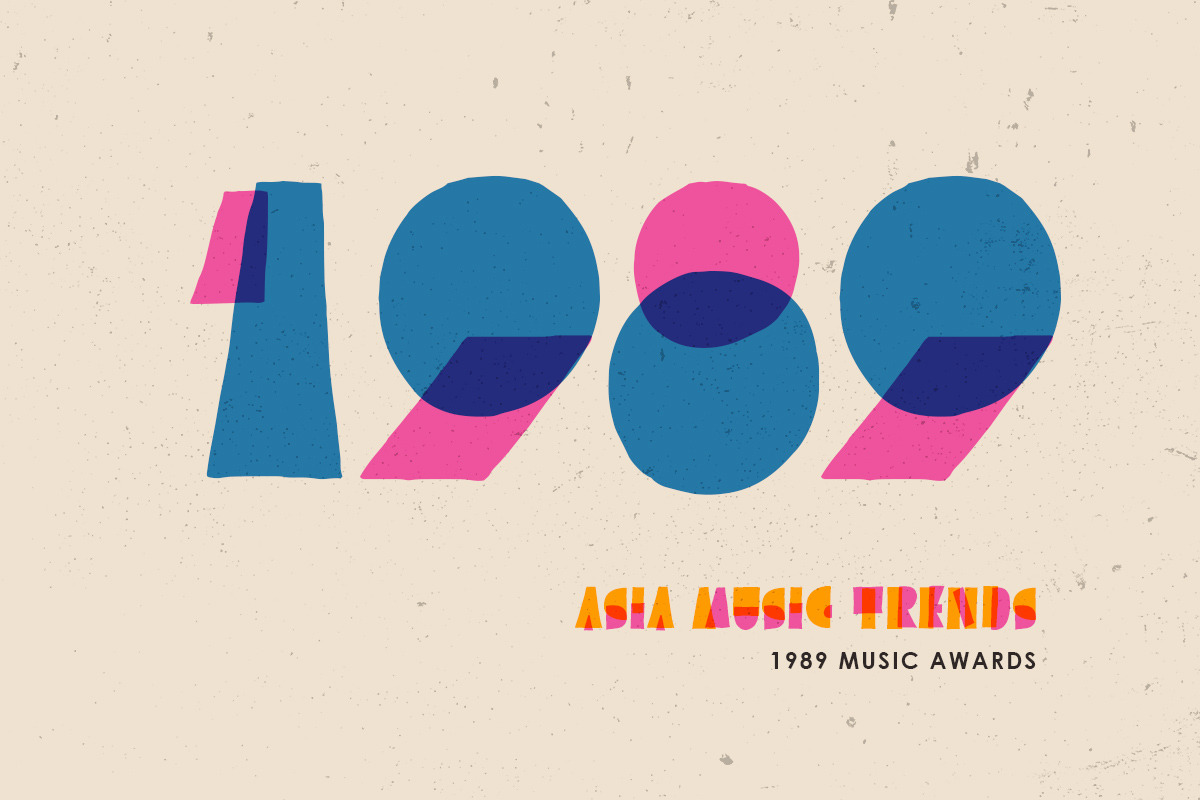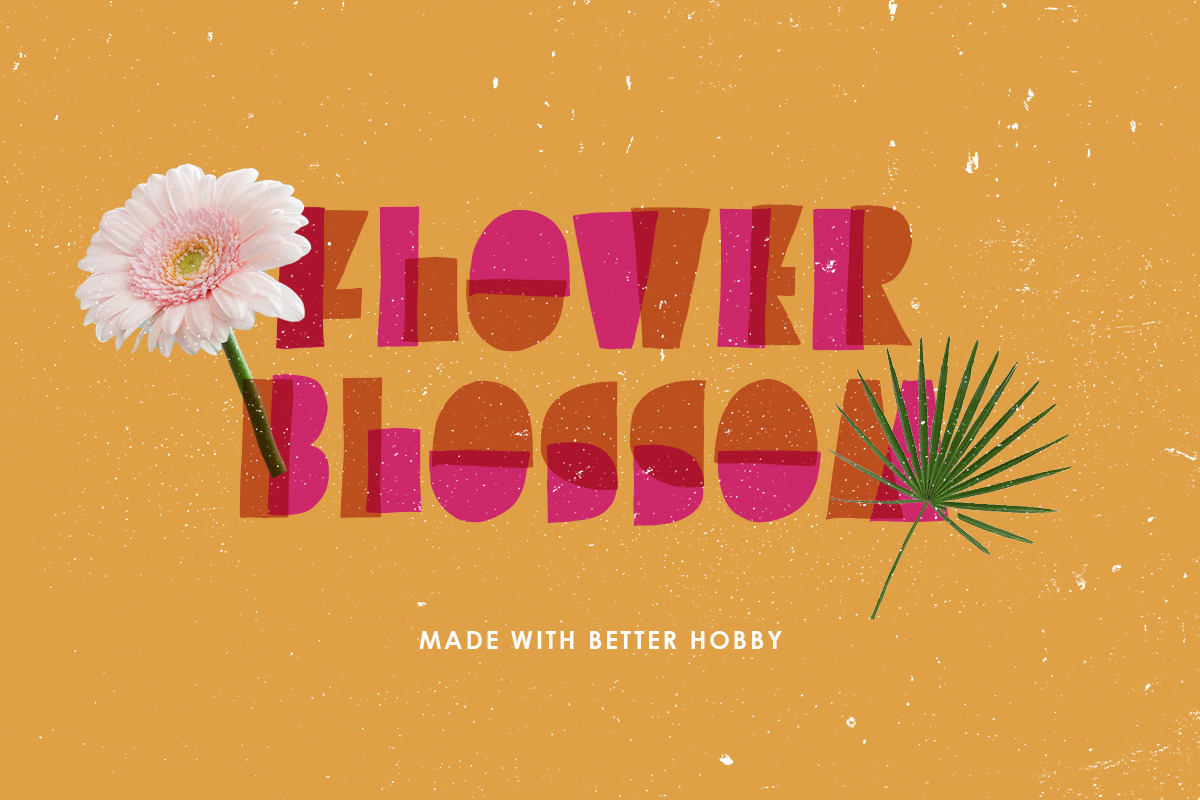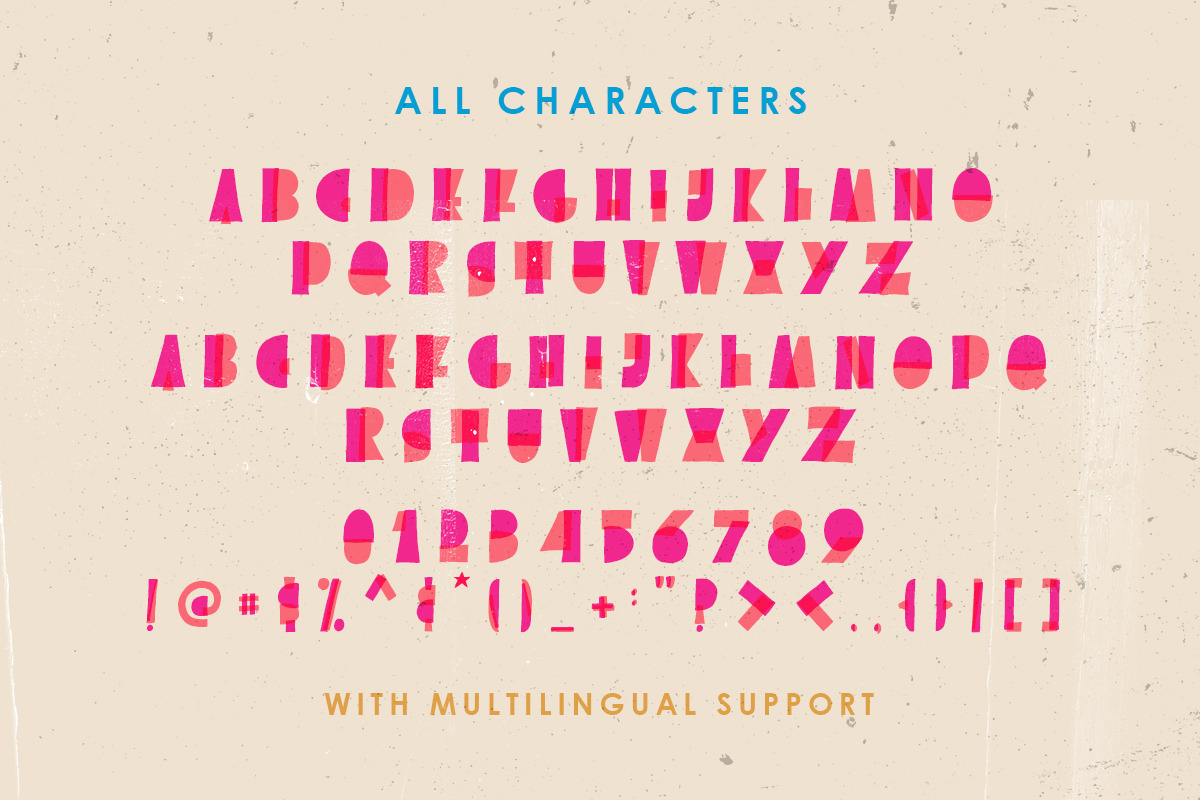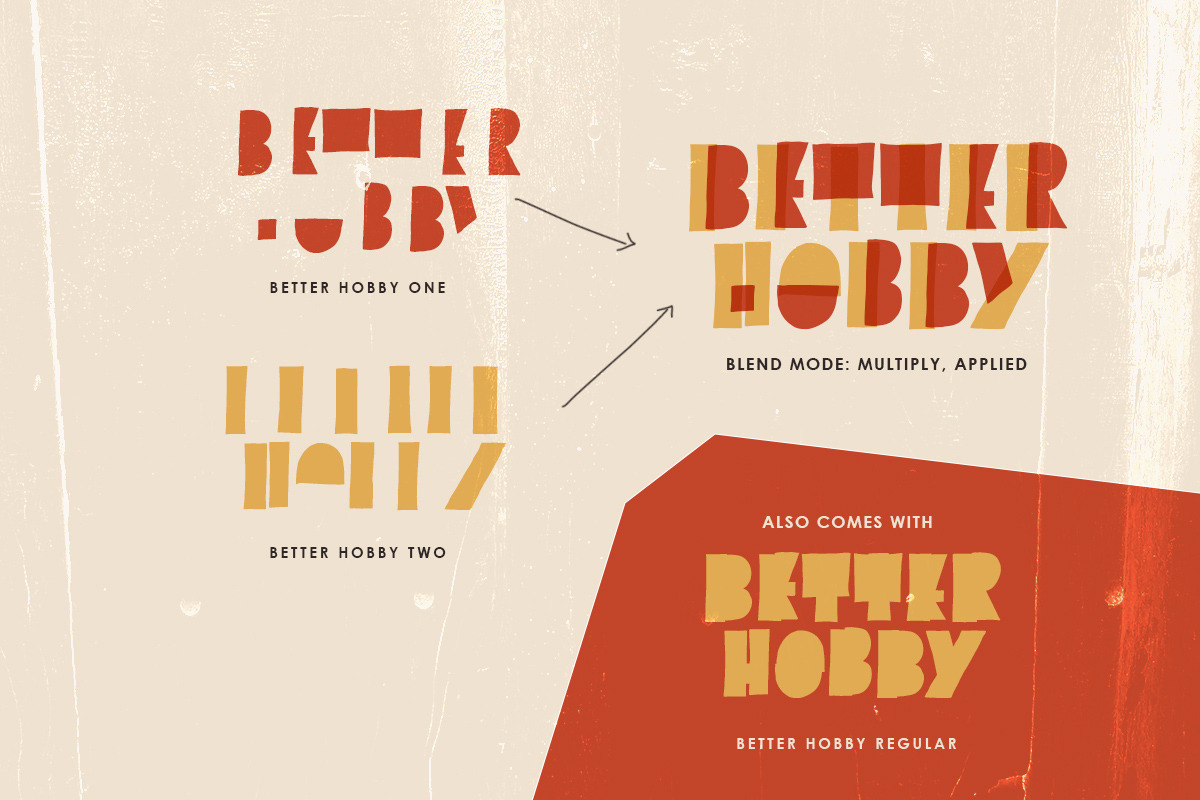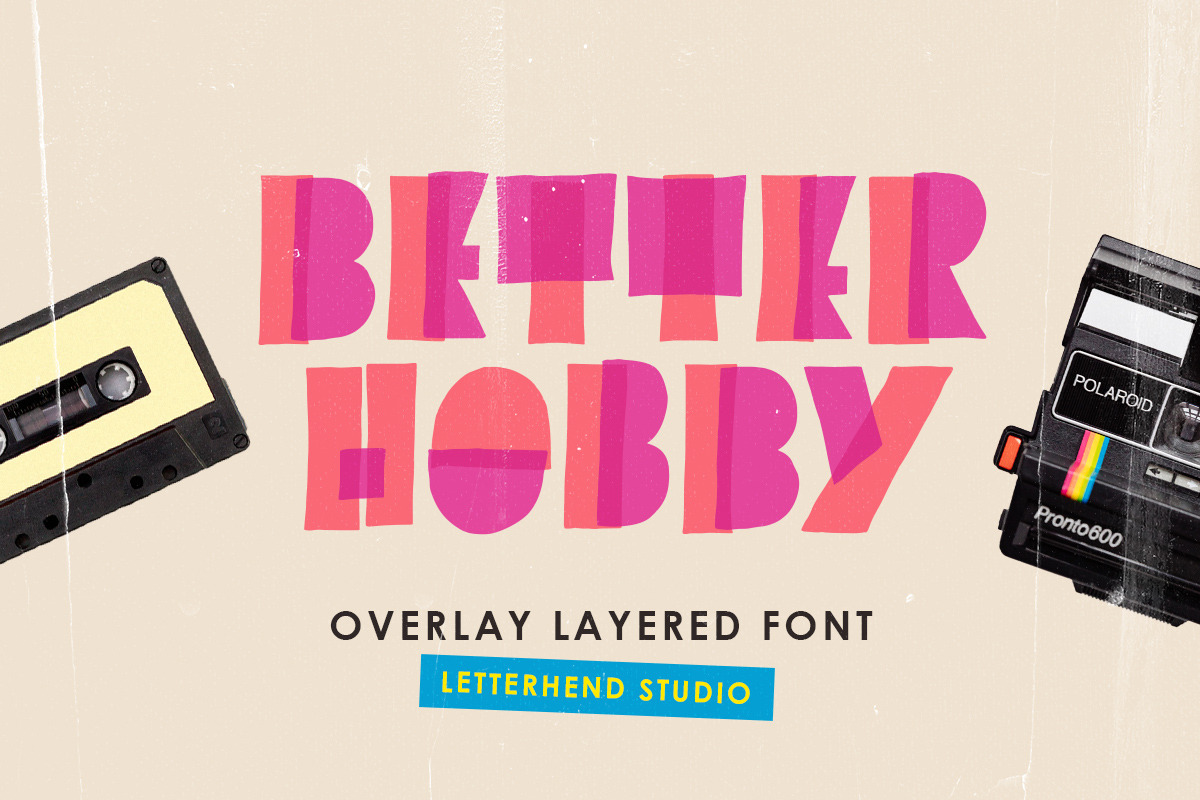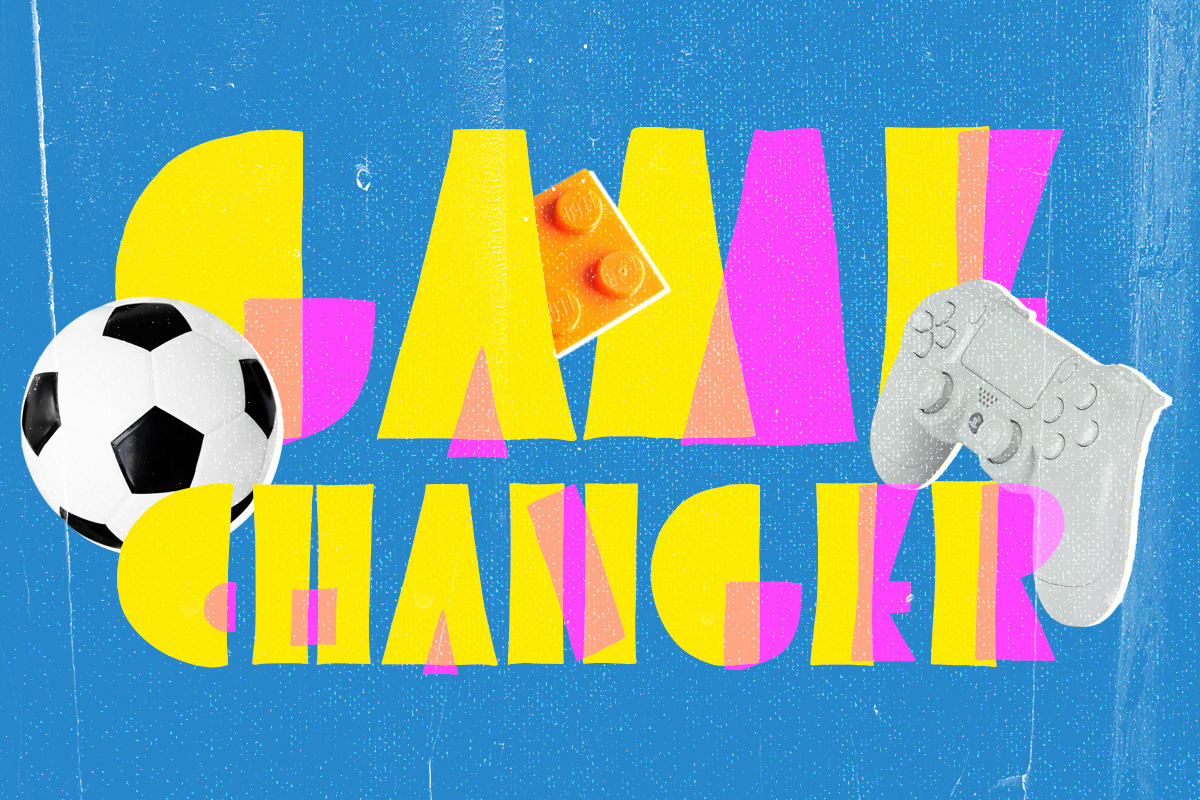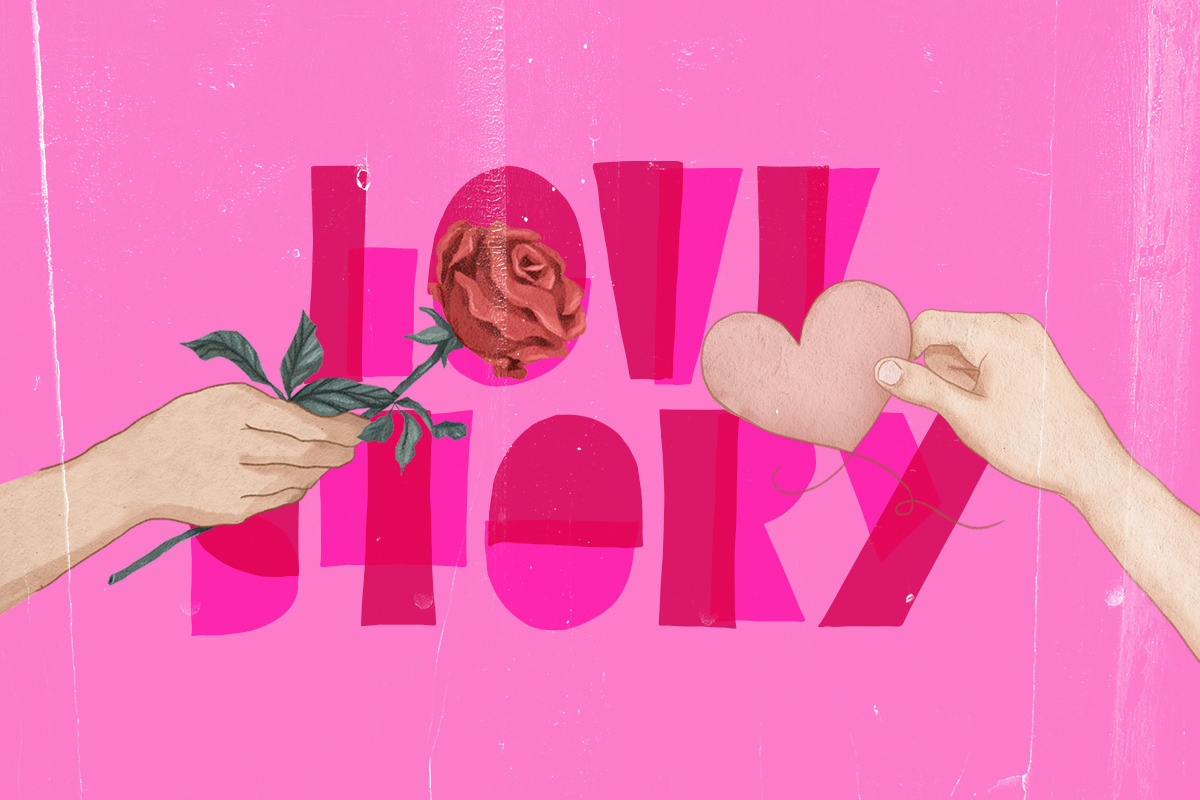
Better Hobby - Overlay Layered Font
Introducing, Better Hobby - A unique overlay layered display font. This font has unique shape, very suitable for casual and playful theme design. This font also perfectly made to be applied especially in logo, and the other various formal forms such as invitations, labels, logos, magazines, books, greeting / wedding cards, packaging, fashion, make up, stationery, novels, labels or any type of advertising purpose.